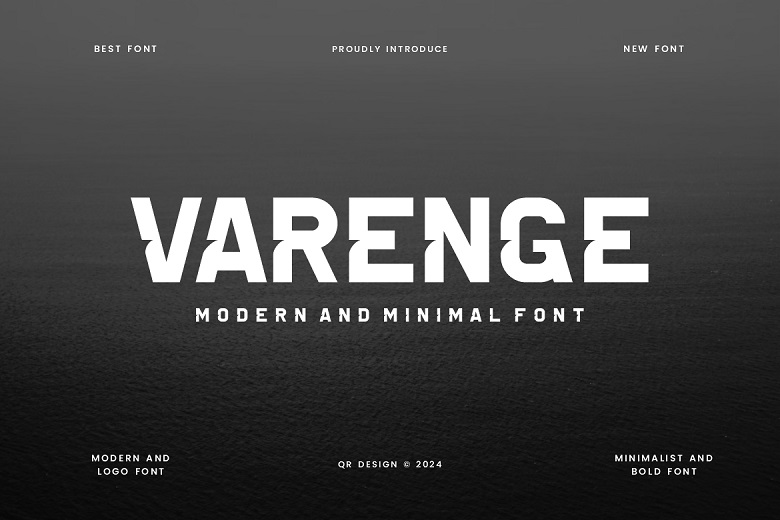
Varenge Font
Varenge is minimalist, contemporary sans serif font suitable for display. Try incorporating it into your art and experience the benefits!It is suitable for flight promotions, luxury branding, magazines layouts, beauty products and any products which are packaged in luxury, quotes or as text over graphic images.
Varenge Display Font